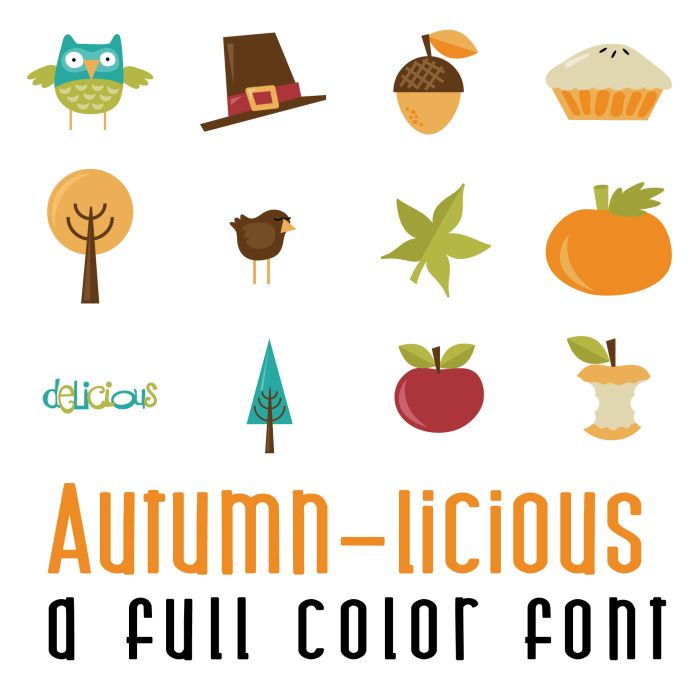
This fun full color font features 26 fun Fall and Thanksgiving imagery perfect for cards, crafts, parties, gifts, decor, planner stickers, classrooms, scrapbook pages and more!